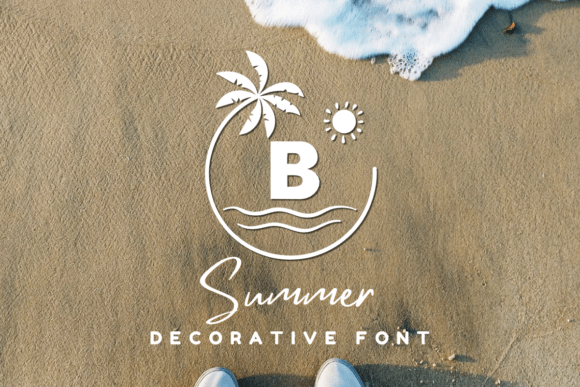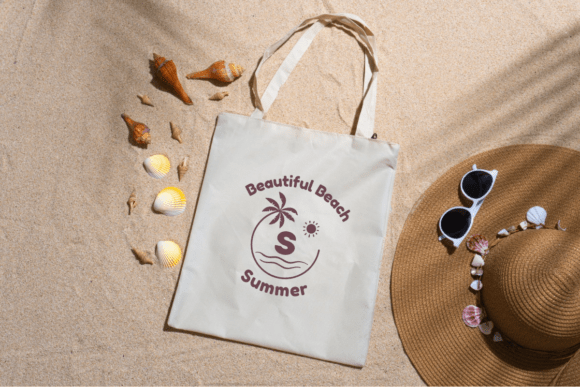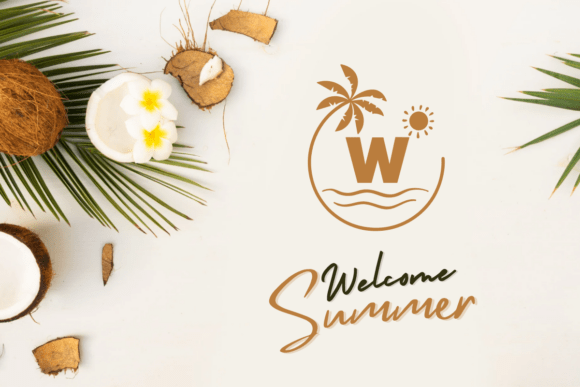
Beach Summer Font
Beach Summer is a tropical-themed decorative font that combines bold monogram initials with charming seaside elements like waves, palms, and sun icons. Each letter is enclosed in a beachy badge design, making it perfect for summer branding, travel merchandise, beachwear labels, vacation scrapbooking, or coastal SVG projects. It’s clean, stylish, and full of sunny vibes.